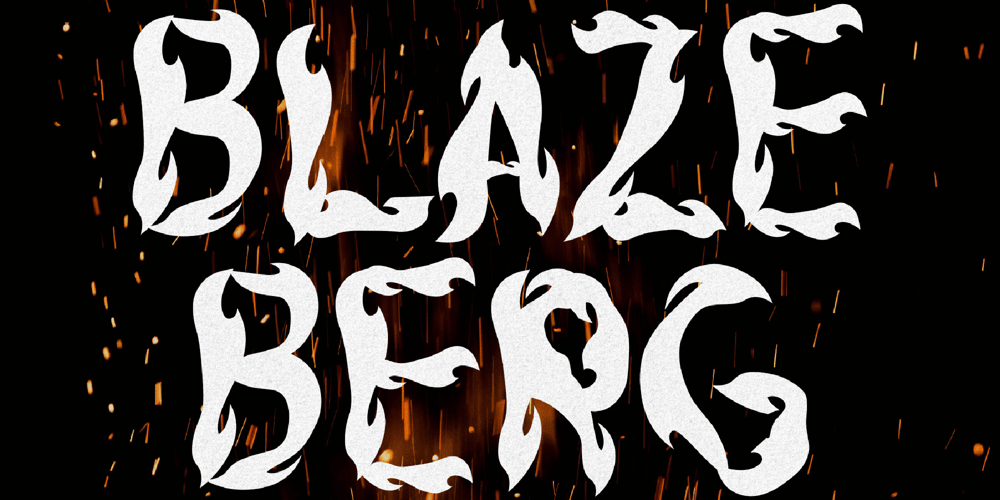
Blazeberg Font Family was designed by Igor Ovsyannykov and published by Hipfonts. Blazeberg contains 1 styles and family package options. Blazeberg is a flame inspired typeface suitable for multiple purposes. Use it for branding, banners, greeting cards, editorials, quote images, music posters, stationery, packaging, design labels, etc. The possibilities are endless! Thanks to its unique shape and curves, Blazeberg stays legible even at small sizes.